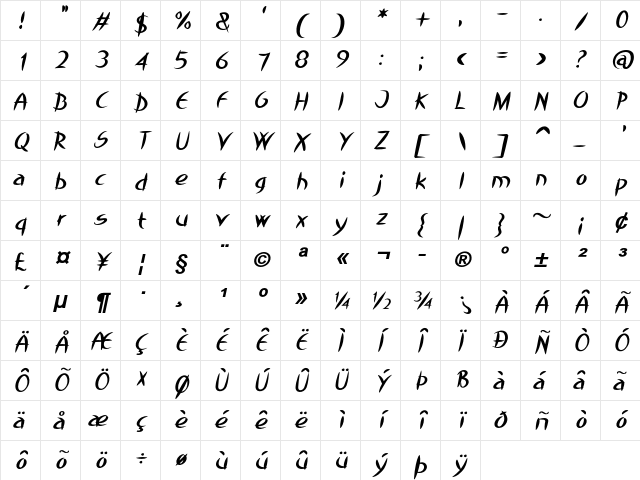
Tsetsu Bold Italic Free Font
Tsetsu Bold Italic
Tsetsu Family
Design Context for Tsetsu
Tsetsu is a composed and adaptable typeface that performs quietly and consistently across a wide range of design contexts. The slanted form adds forward momentum and visual energy. Its bold stroke weight gives it real presence on the page.